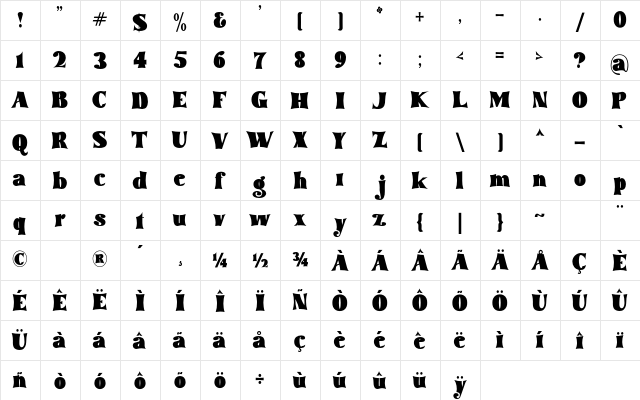
tommy font bold Regular
| Foundry | 177Studio.com |
| Designer | 177Studio.com |
Design Context for tommy font bold Typeface
tommy font bold offers clean, dependable letterforms without strong stylistic allegiance, making it a practical choice for designers who need flexibility. Its bold stroke weight gives it real presence on the page.